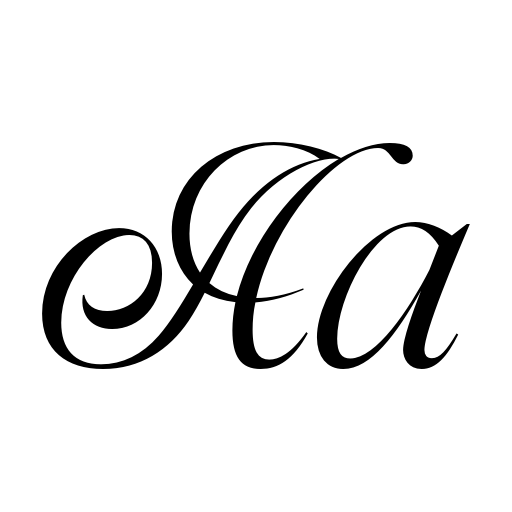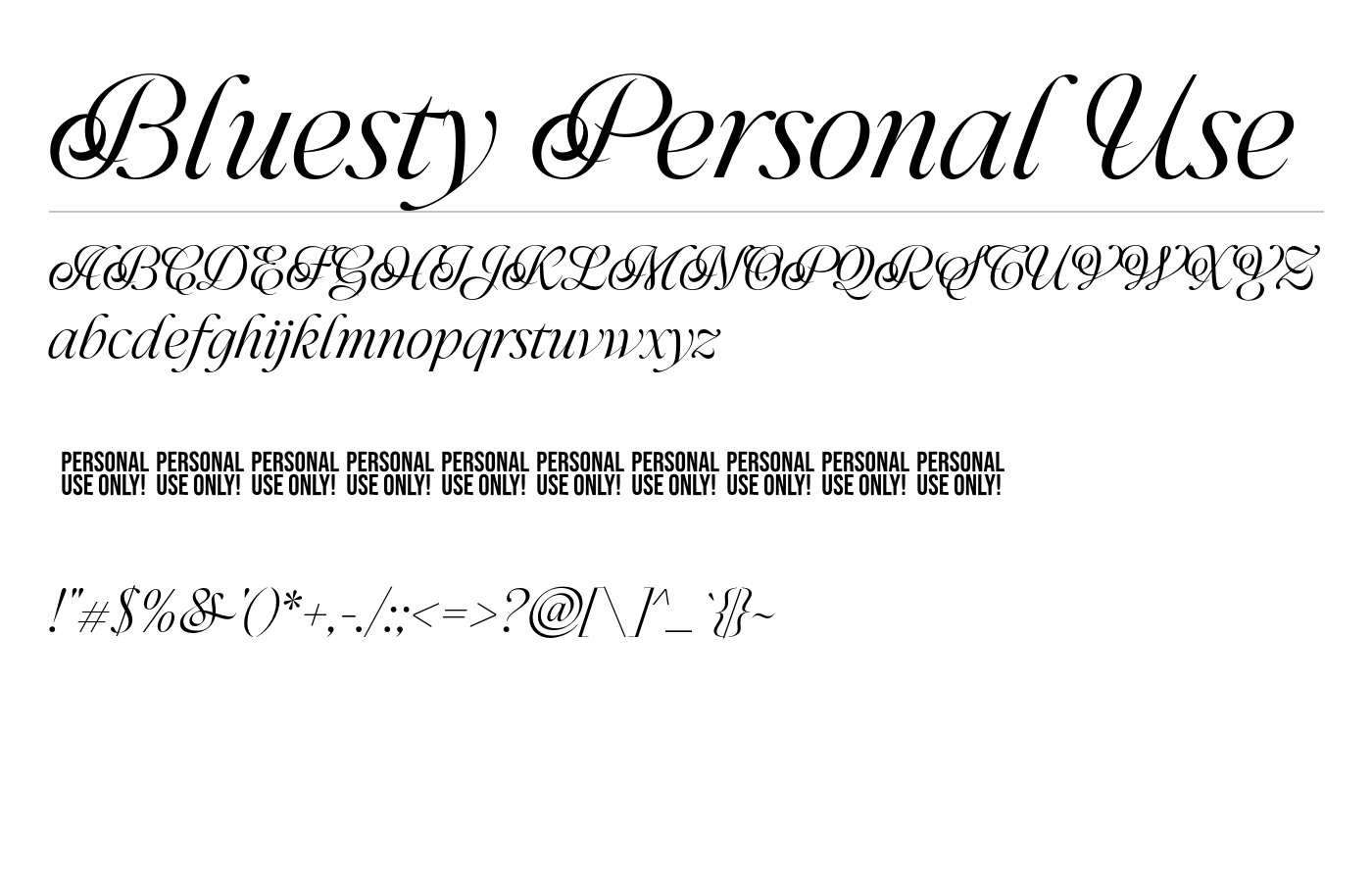
Bluesty Personal Use is an elegant script font characterized by its fluid, calligraphic strokes and high contrast between thick and thin lines, giving it a refined and graceful appearance. Its delicate curves and ornamental uppercase letters make it perfect for sophisticated branding, wedding invitations, and luxury packaging where a touch of classic beauty and personal flair is desired. This font brings a timeless, stylish feel that works best in decorative headlines and formal design contexts.